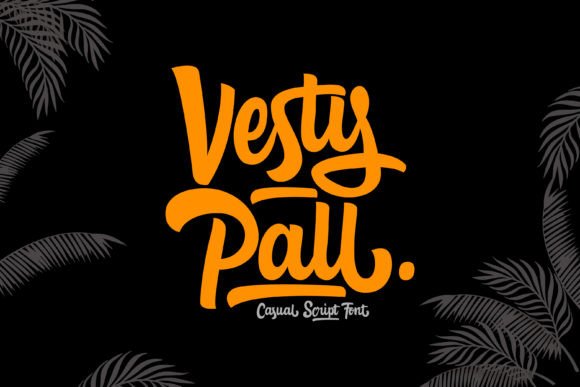
Introducing Vesty Pall Font, the ultimate choice for those seeking a font that exudes casual elegance. Crafted with meticulous attention to detail by the talented artist artisco99, this captivating script font is designed to captivate and inspire.
Vesty Pall Font belongs to the script font family, offering a unique and distinctive style that is perfect for various design projects. Whether you're looking to add a touch of sophistication to your invitations, create a memorable logo, or craft eye-catching social media graphics, this versatile typeface has got you covered.
What sets Vesty Pall Font apart from the rest is its ability to effortlessly strike the perfect balance between sophistication and friendliness. Its stylish letterforms exude a sense of elegance, while still maintaining an approachable and warm vibe.
When it comes to creating an impact, Vesty Pall Font truly shines. Its timeless appeal and emotional resonance make it the perfect choice for those seeking to leave a lasting impression. Imagine the reaction of your audience when they see the beautiful and artistic lettering created with this font.
With Vesty Pall Font, your designs will come alive with creativity and personality. Each stroke and curve is crafted with utmost care, ensuring that every word becomes a work of art. The attention to detail is unparalleled, making this font a true masterpiece.
But Vesty Pall Font is not just about aesthetics; it's also about functionality. This font is designed to be user-friendly, allowing you to effortlessly incorporate it into your projects. Say goodbye to the hassle of complicated fonts that slow you down. With Vesty Pall Font, you'll enjoy a seamless and efficient design experience.
Whether you're a professional designer or someone looking to add a touch of creativity to your personal projects, Vesty Pall Font is the perfect companion. It's time to elevate your designs and truly stand out from the crowd.